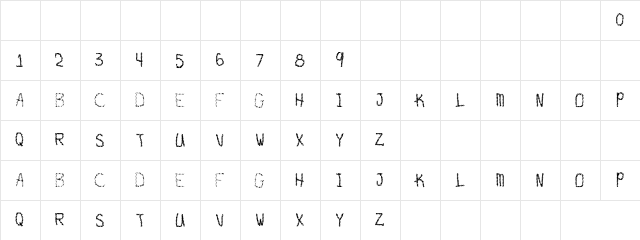
Teachers Stroke Regular
Design Context for Teachers Stroke Typeface
Teachers Stroke takes a measured approach to typography — its balanced proportions and neutral character make it a reliable workhorse for both digital and print work.